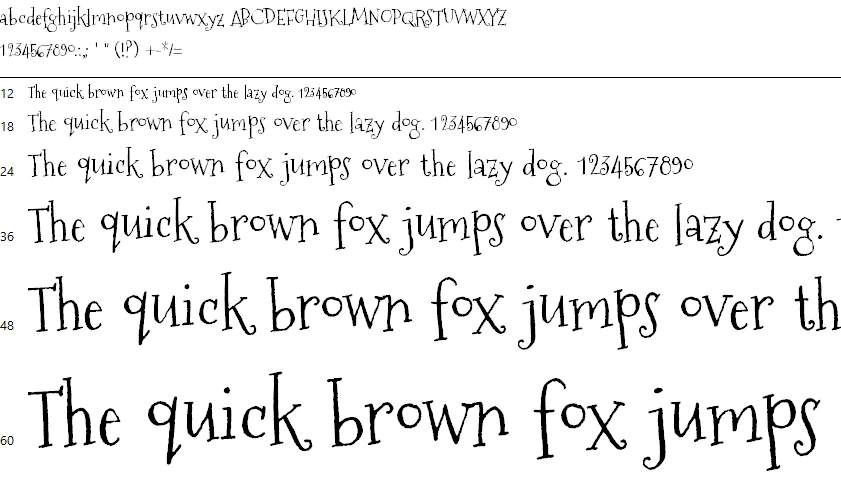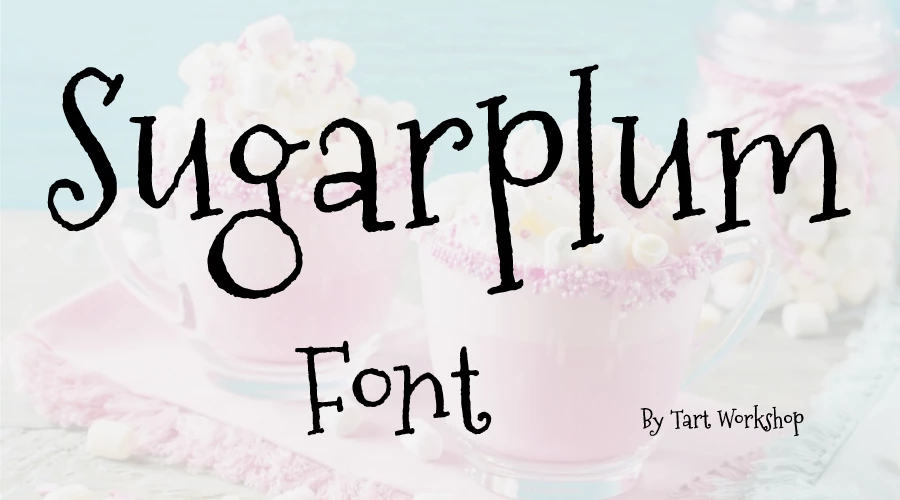
Sugarplum Font is a handwritten script font with a pleasant touch. Tart Workshop created it on May 4th, 2012. Stuart Sandler and Crystal Kluge are the names of the designers. It has manufactured a state of complete bliss just to make it fashionable. As a result, all of the characters have playful, carefree energy. So, if you want to make excellent designs, you should use it. The Font is available in TTF and OTF formats.
Its texture is drawn using and alone to keep the outward appearance. That is why all of the characters appear to be poorly constructed. However, this will undoubtedly give you a professional appearance. Several designers work with clients who want their designs to have a charming and delicate feel to them. As a result, it’s an excellent choice for those locations. Sugarplum Font is available in two different styles: Regular and Sugarplum Sweet. There are almost 400 characters in each of these typefaces.
You may easily produce game graphics, game titlings, printing on fabrics, comic books, movie posters, charming quotations, product packaging, tattoos, and many other locations, thanks to its incredibly unique texture. It is now being used by a number of designers in a variety of settings.